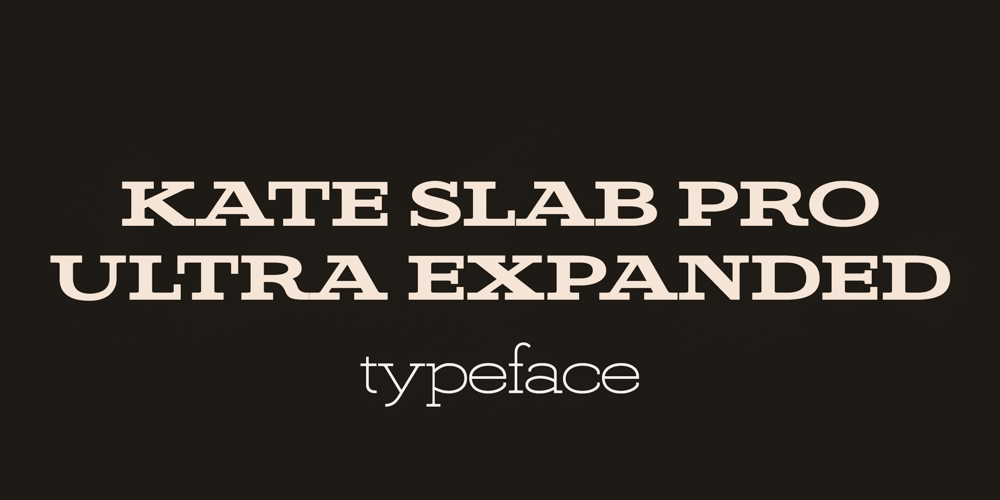
Kate Slab Pro Ultra Expanded Font Family was designed by Sebastian Hilgetag and published by Monday Type. Kate Slab Pro Ultra Expanded contains 22 styles and family package options. Kate Slab Pro Ultra Expanded is a sophisticated and robust modern Slab Serif Typeface that works in a variety of design scenarios.It is designed to work in big attention grabbing headlines as well as in smaller text and even body text.The recognition value of Kate Slab Pro Ultra Expanded is its biggest asset in world of uniformity.Ranging from “100 Thin” all the way to “900 Black” makes Kate Slab Pro Ultra Expanded such an amazing and versatile font family that stands out.Kate Slab Pro Ultra Expanded doesn’t only work great in lifestyle and fashion related contexts but will also look amazing for restaurants, coffee shops or and other use cases that ask for character and identity.To fill all the gaps of a designer’s needs, Kate Slab Pro Ultra Expanded comes with an italic style with every weight. Those italics are equipped with unique and real italic characters and will make you love it.Being a Slab Serif Kate Slab Pro Ultra Expanded manages to remind you of a classic Font Family with a modern and timeless approach that will make you happy for decades.Monday Type can’t wait to see the beautiful designs you are going to create with our Kate Slab Pro Ultra Expanded.